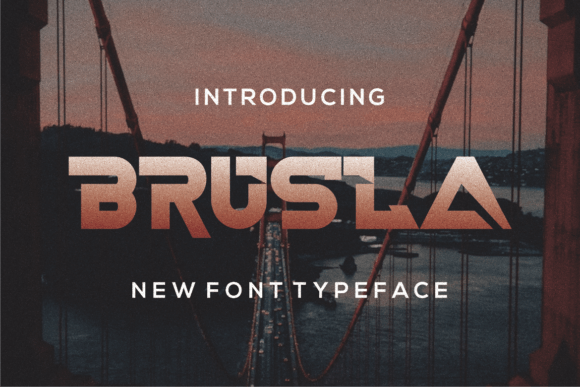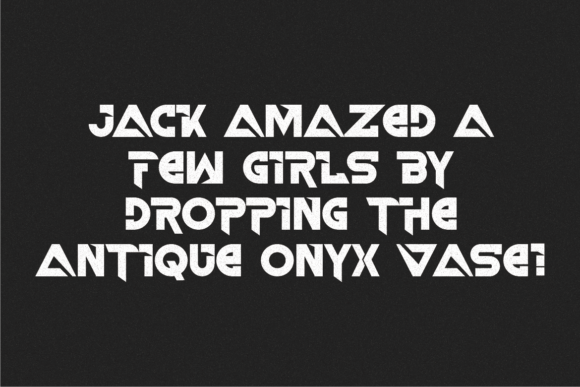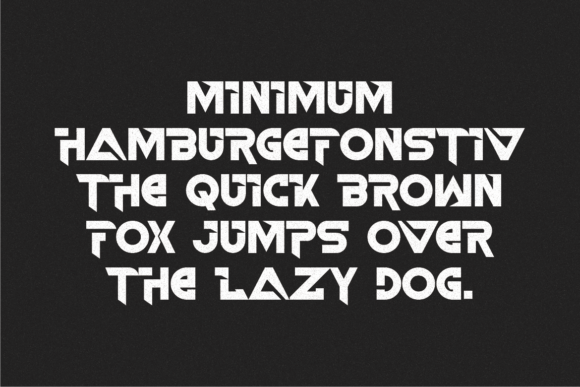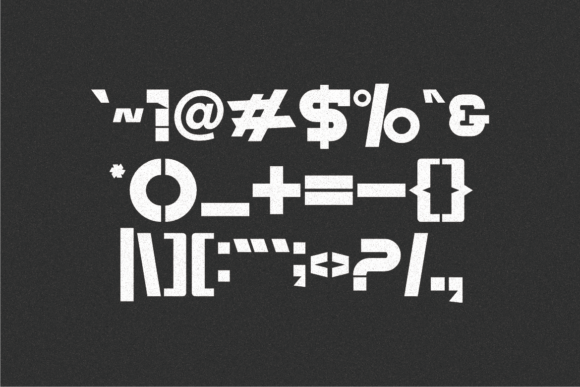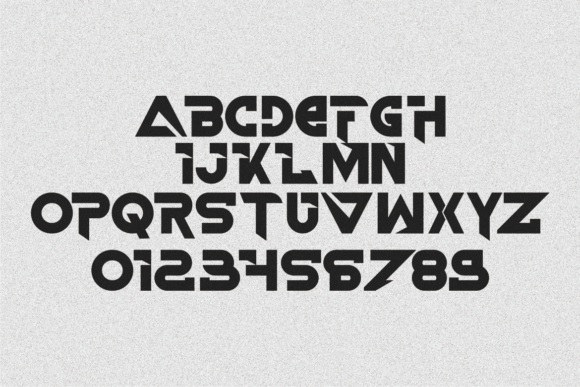
Brusla
Brusla: A Unique and Bold Slab Serif Font
Brusla is a unique slab serif font that combines beautiful, bold, and modern design elements. This versatile typeface is perfect for various projects, from signatures and stationery to branding and packaging design.
Key Features of Brusla
• Unique Design: Offers distinctive letterforms.
• Bold Style: Features strong, impactful serifs.
• Modern Appeal: Brings contemporary sophistication.
• Versatile Application: Adapts well to numerous design contexts.
Best Uses for Brusla
Thanks to its versatile characteristics, Brusla works especially well for:
When using Brusla in your designs, keep these tips in mind:
• Try it for headlines or display text to showcase its bold style.
• Use different sizes to highlight its modern features.
• Pair with simpler fonts for body text to create balance.
• Let its versatility enhance both traditional and contemporary projects.
To sum up, Brusla is an excellent choice for designers seeking a unique and bold slab serif font. Its versatility makes it perfect for a wide range of projects. Whether you’re creating wedding materials, designing logos, or developing branding packages, Brusla offers the perfect blend of contemporary style and bold sophistication.
Furthermore, Brusla’s distinctive design allows it to shine in contexts where both boldness and modernity are key. For instance, from stationery to website headers, this font can elevate your projects with its refined style. Also, its bold yet beautiful appearance works particularly well in designs that aim to make a sophisticated impact.
In conclusion, Brusla truly captures the essence of modern boldness in slab serif typography. Its versatility across different applications shows how well it can serve various creative needs. Therefore, for those wanting to add a touch of unique sophistication to their work, Brusla can enhance any design with its distinctive style. Ultimately, it’s perfect for designers aiming to make a bold, modern impact across a wide range of creative projects.